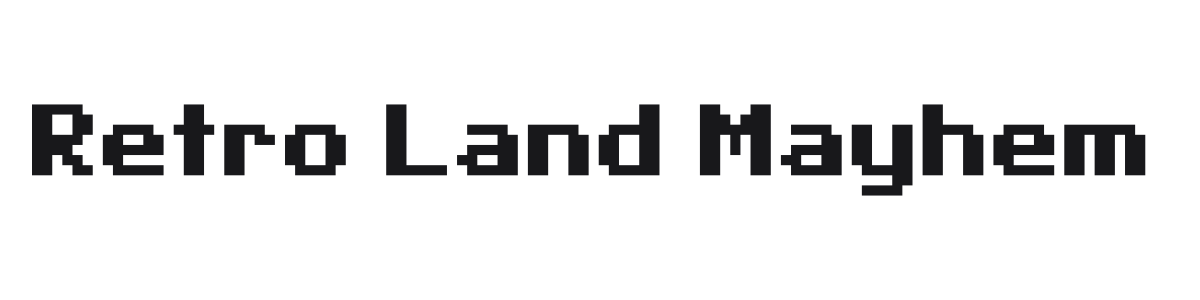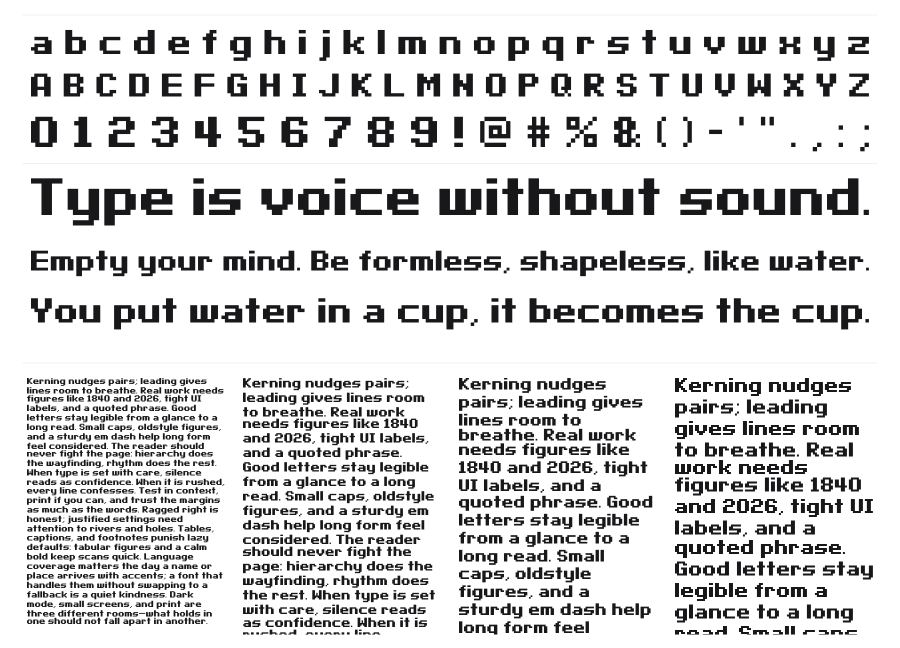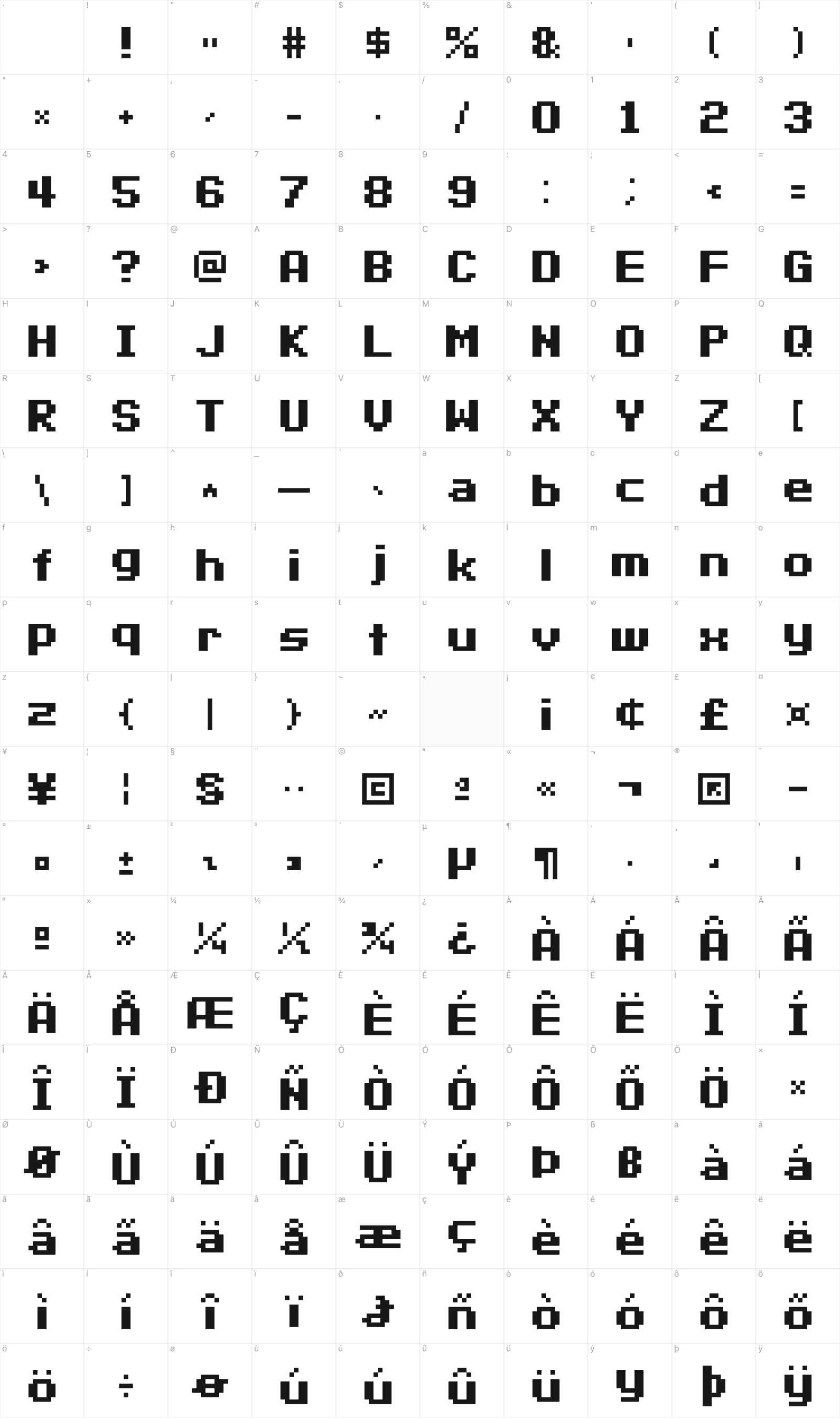
Retro Land Mayhem
Retro Land Mayhem is a bold bitmap font recreating the pixel typography from the Nintendo DS game Mario vs. Donkey Kong: Mini-Land Mayhem. Every character is built on a strict square grid, giving it that unmistakable early-2000s handheld game UI look. Great for gaming projects, retro-themed designs, and anything aimed at evoking Nintendo-era nostalgia.